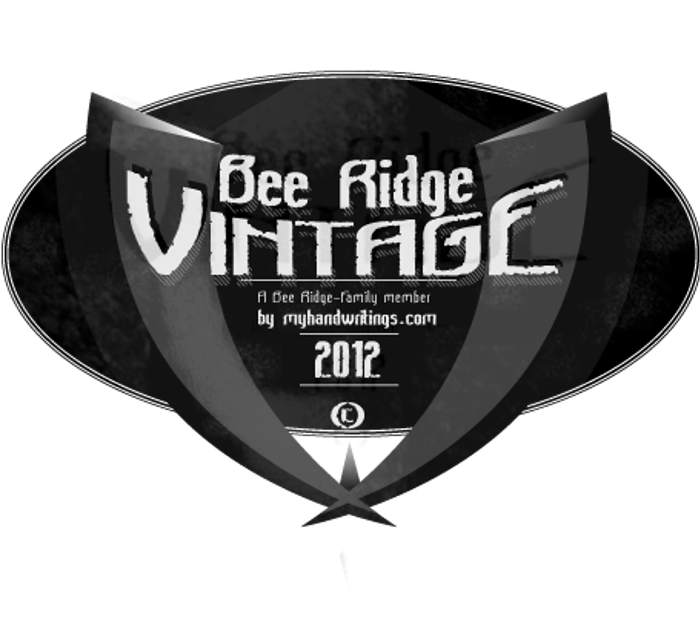
Bee Ridge Vintage Font
Semi-condensed Bold Style
About Bee Ridge Vintage Font
This is an eroded / stony version of Bee Ridge Font what best fits to vintage style designs. Bee Ridge is a semi condensed sans serif family which contains Regular, Bold, Italic and Bold Italic versions.
As I am currently working on this family the character set and the glyphs will contain more elements than the vintage edition.
@viperrific Thank you very much for your supportive comment. I am glad you like my fonts. I haven't really had any particular time period it's rather supposed to be related to an art deco style and just looking old mostly because it's eroded. It's interesting that you thought it would be good for science fiction.
Great character set! (How many people post fonts to these sites that have a decent collection of math characters? )
Actually, my thought when I first set eyes on this font was that it would be good for a science fiction-related use. (Perhaps one day Paramount will make another Star Trek movie and pay you a bunch of money to use it for the credits!) When you say it's best-suited to "vintage style designs," is there a particular time period you have in mind?